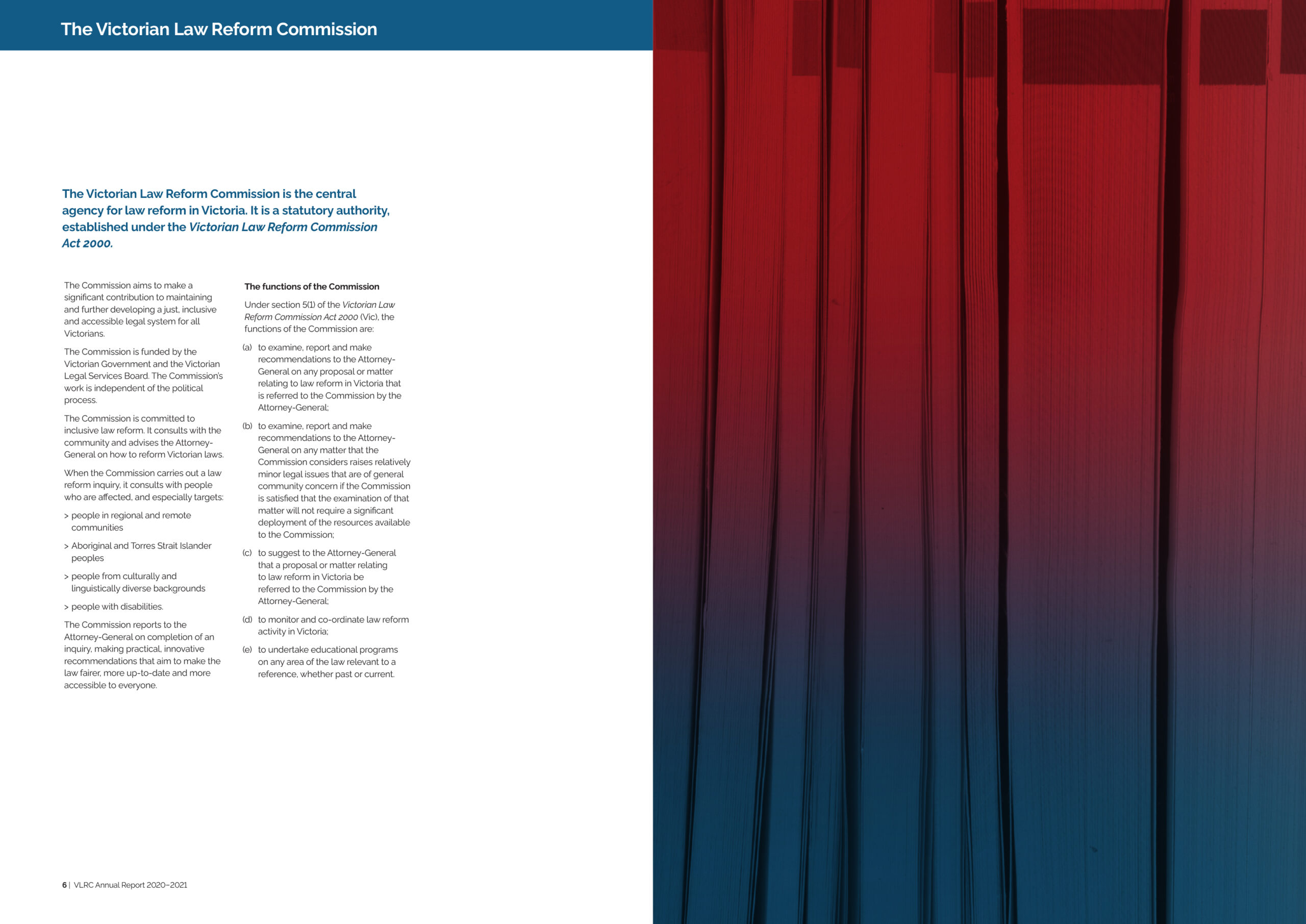
The Asterisk
For most of us, the asterisk is used in text to indicate a correction, a further point of clarification or the presence of additional information.
And that’s what makes the asterisk within the renewed identity for the Victorian Law Reform Commission so appropriate. Reflecting the commission’s three guiding principles – Inclusion, Independence and Innovation, the symbol represents outward listening (to community) and the inward act of law reform. Perhaps the clearest comment on the asterisk comes from St. Isidore of Saville who wrote in Etymologiae (c.560–636) ‘The asterisk is placed against [that which has been] omitted in order for what seems to be omitted may shine forth’.